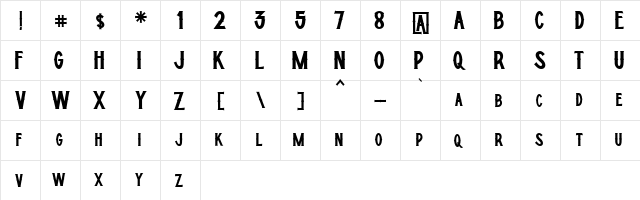
Hypebeast Regular
| Foundry | Creatype Studio Co. |
| Designer | Rian Rahardi |
Design Context for Hypebeast Typeface
Hypebeast takes a measured approach to typography — its balanced proportions and neutral character make it a reliable workhorse for both digital and print work.